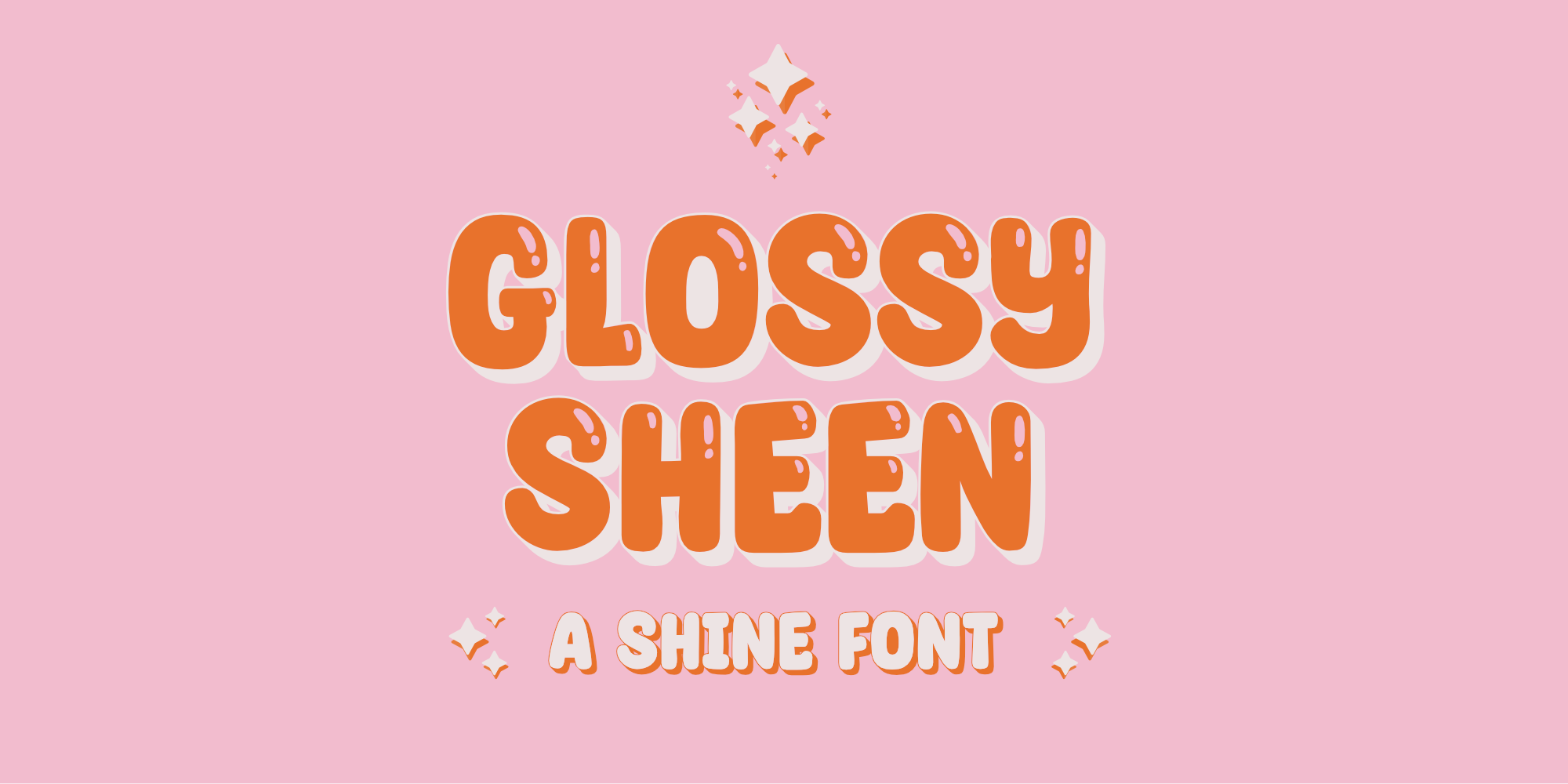
Glossy Sheen Font excels in modern tech branding, sleek product launches, futuristic advertising campaigns, digital app interfaces, contemporary website headers, innovation showcase materials, cutting-edge automotive designs, premium electronics packaging, modern fashion campaigns, and dynamic social media graphics.
Glossy Sheen Font is exciting because it captures the essence of modern sophistication through its lustrous letterforms that shimmer with contemporary appeal and technological precision, creating an instant connection with audiences who appreciate sleek design and forward-thinking aesthetics. This remarkable typeface embodies the perfect fusion of glossy elegance and digital-age functionality, making it an indispensable tool for designers seeking to create visually striking communications that reflect the polished nature of modern innovation.
The Glossy Sheen Font family includes comprehensive variations such as Regular, Bold, Light, ExtraBold, Medium, Italic styles, Condensed formats, Extended versions, Gradient effects, and specialized metallic finishes, providing complete design flexibility for any contemporary creative project.
Glossy Sheen Font represents a breakthrough in modern typography, delivering exceptional visual impact for projects that demand attention-grabbing sophistication and contemporary appeal. Its distinctive polished character structure makes it particularly effective for brands seeking to establish a sleek, innovative market presence in competitive digital landscapes.
The luminous quality of Glossy Sheen Font makes it ideal for technology startups, automotive companies, consumer electronics brands, modern architecture firms, contemporary art galleries, and innovative design agencies requiring cutting-edge visual communication. Its reflective letterforms ensure memorable brand recognition among trend-conscious audiences.
Creative professionals recognize how Glossy Sheen Font Free Download provides instant access to premium contemporary typography that transforms ordinary designs into extraordinary expressions of modern elegance and technological sophistication. The font's extensive character set supports diverse digital applications while maintaining its distinctive glossy appeal.
Glossy Sheen Font's advanced features include stylistic alternates, contextual ligatures, and special effects that enhance the font's lustrous character. These modern elements enable designers to create compelling layouts that resonate with tech-savvy audiences and contemporary design enthusiasts.
The adaptability of Glossy Sheen Font extends seamlessly across digital platforms, proving equally effective for mobile applications, responsive websites, social media campaigns, digital advertisements, and interactive presentations. Its scalable design maintains crisp luminosity at any resolution.
For design professionals pursuing cutting-edge typography, Glossy Sheen Font delivers the perfect combination of contemporary shine and professional functionality. Its polished appeal combined with technical excellence makes it an essential resource for creating memorable visual communications that capture the glossy sophistication and innovative spirit of modern design in today's digital-first marketplace.